Wayside Colorado Font Collection
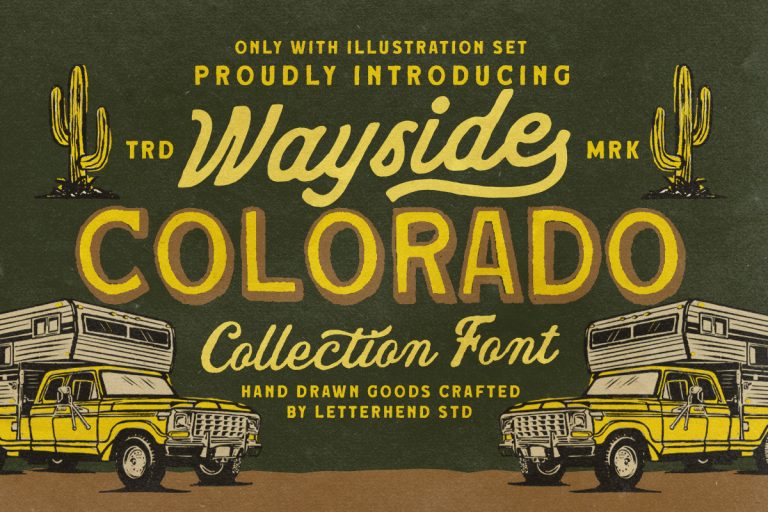
Wayside Colorado Collection channels nostalgic Americana with handcrafted letterforms that evoke sun-faded highway signage, roadside diners, and classic western posters. The font’s rough strokes and subtly distressed edges deliver warmth and authenticity, helping your designs feel lived-in rather than manufactured.…
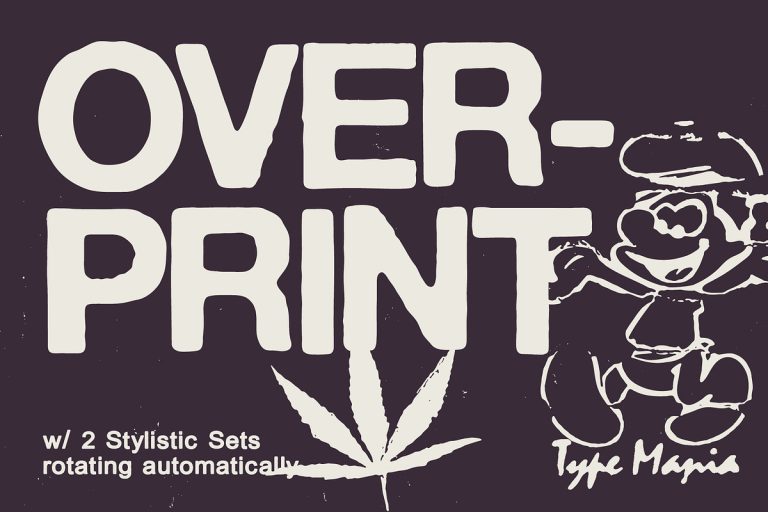
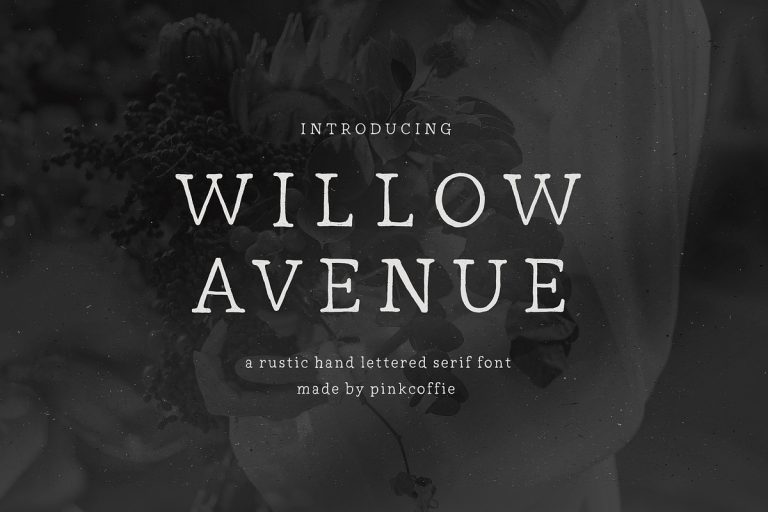Overprint TM – Distressed Sans Serif
Overprint TM captures the raw energy of photocopied, weathered print with intentionally uneven edges and a xeroxed finish that reads as authentic and tactile. This display typeface actively communicates vintage character and rugged personality, making it ideal for posters, packaging,…
Willow Avenue | Hand lettered Serif
Willow Avenue draws its personality from handcrafted ceramics and rustic stationery, bringing a tactile, artisanal feel to modern typography. The letterforms show thoughtful stroke contrast and subtle irregularities that suggest a hand-drawn origin while remaining fully refined for digital and…
Kagita Elegant Serif Font
This serif font delivers a polished, high-end appearance designed specifically for branding and logo applications. It combines classical serif proportions with contemporary details so your wordmarks and logotypes command attention without appearing dated. The letterforms present confident vertical stress, graceful…
American Mortar -Vintage Font Family
AMERICAN MORTAR projects confident, nostalgic energy while remaining highly adaptable to contemporary design systems. Use it for logo marks, headline typography, product packaging, posters, apparel branding, signage, and editorial covers where a strong presence and vintage personality matter. Designers will…
Thorn & Tale – A Refined Serif Font
Thorn & Tale is purpose-built to elevate brands that demand sophistication and visual drama. This high-contrast serif injects editorial authority and artisan charm into logos, magazine mastheads, book covers, and premium packaging. Designers will find Thorn & Tale actively shapes…
Velista || elegant display serif
VELISTA delivers a refined, high-fashion voice for visual identities that demand poise and clarity. Designed with meticulously crafted thin strokes and purposeful contrast, VELISTA balances delicate grace with outstanding legibility. The typeface reads clearly at display sizes while retaining a…
Kelin Eator
Kelin Eator brings a refined vintage voice to modern layouts. The typeface blends classic serif proportions with refreshed terminals and subtle contrast, so headlines read with confident character while supporting text remains readable. Designers will find the font immediately usable…
Garden State
Garden State presents a carefully crafted vintage type collection that channels the refined spirit of early 1900s garden parties. Designers looking to inject authentic period charm into modern work will find Garden State powerful and versatile. The typeface actively shapes…
Fresh Mango – Retro Serif Font
Fresh Mango brings a retro serif voice that commands attention while remaining highly usable across projects. Its high-contrast strokes and curved terminals create a sleek, elegant appearance that reads strongly at display sizes and preserves clarity in longer lines. Use…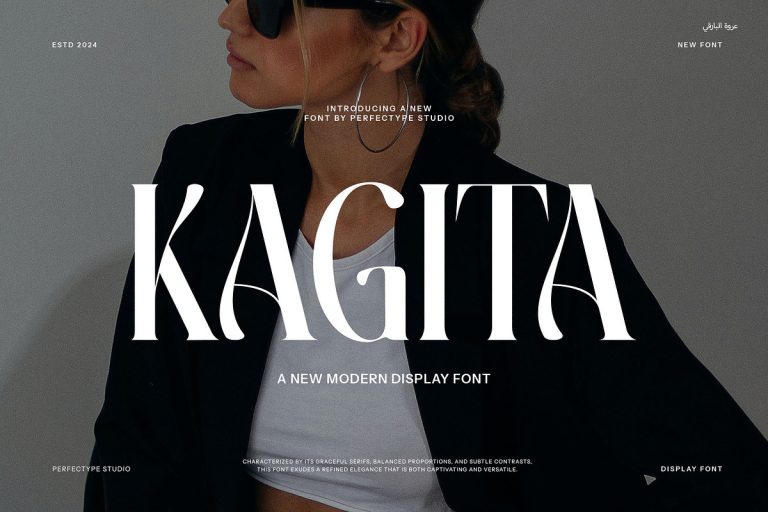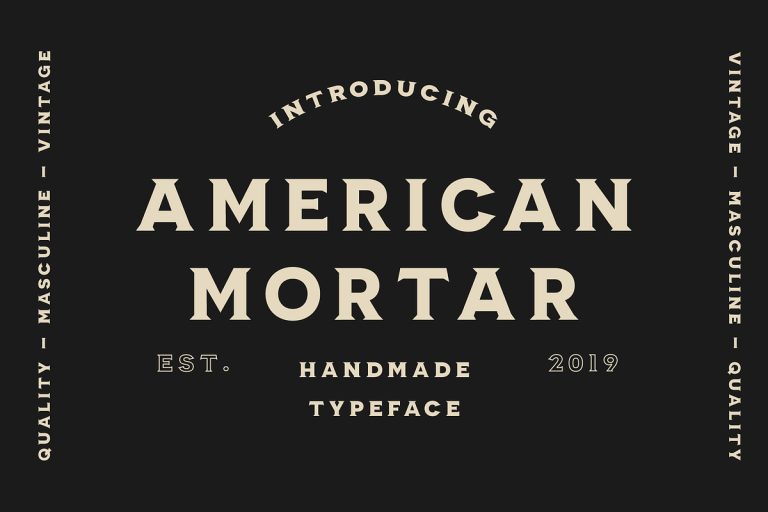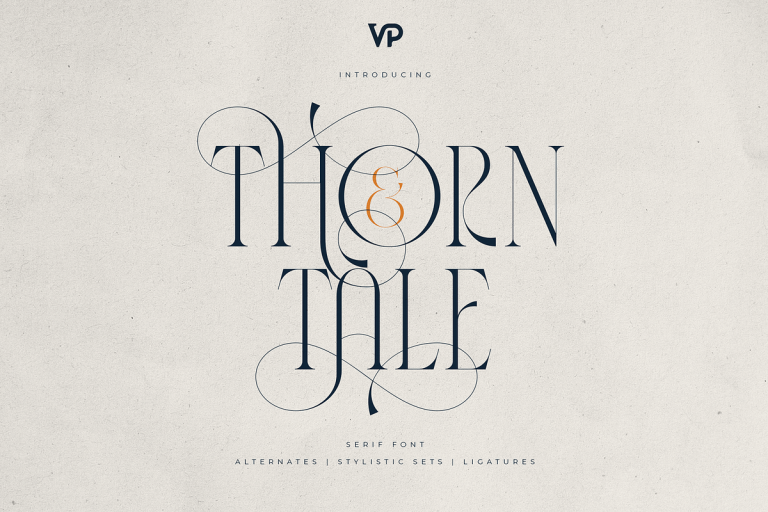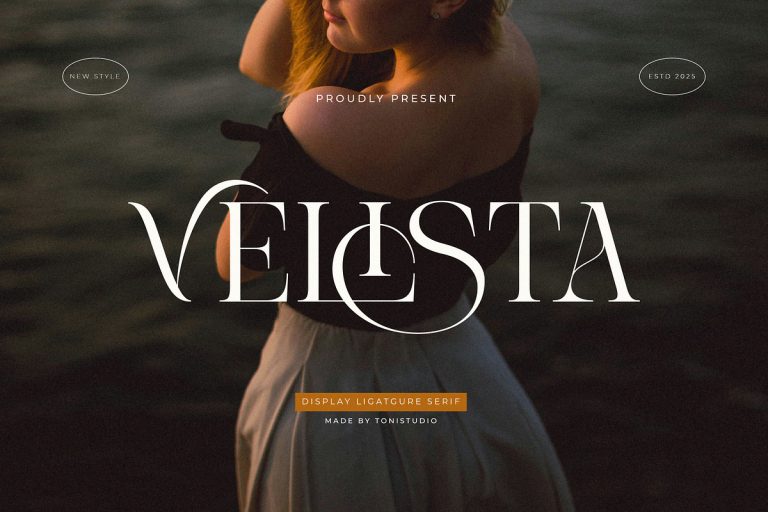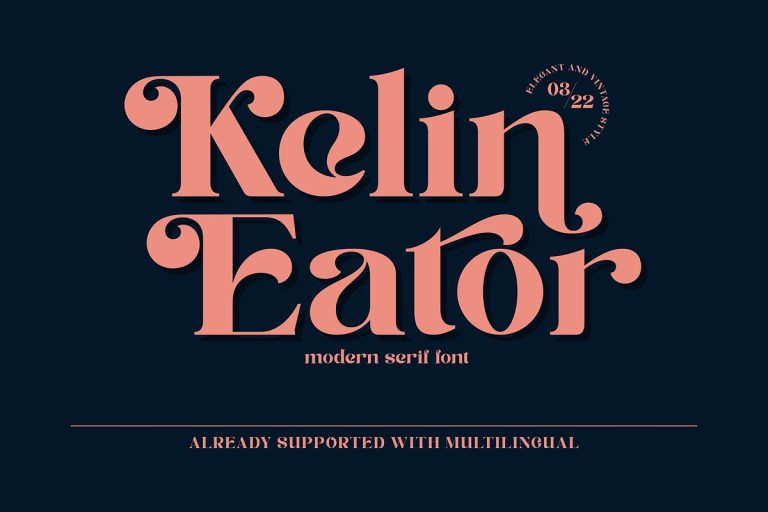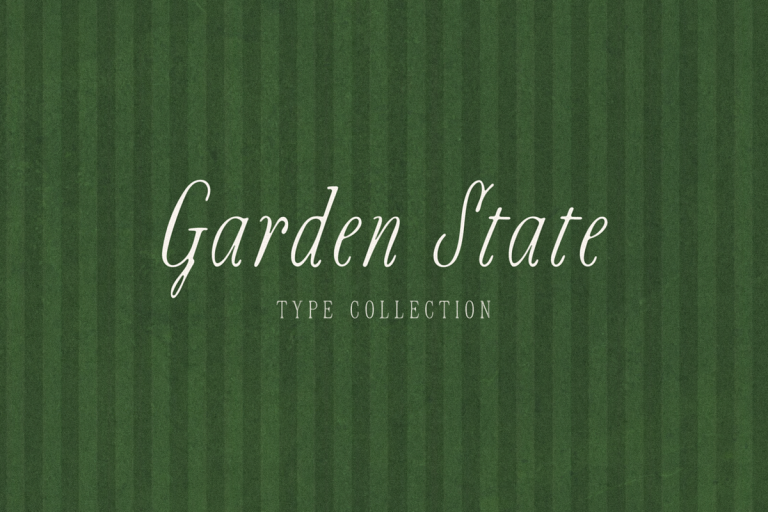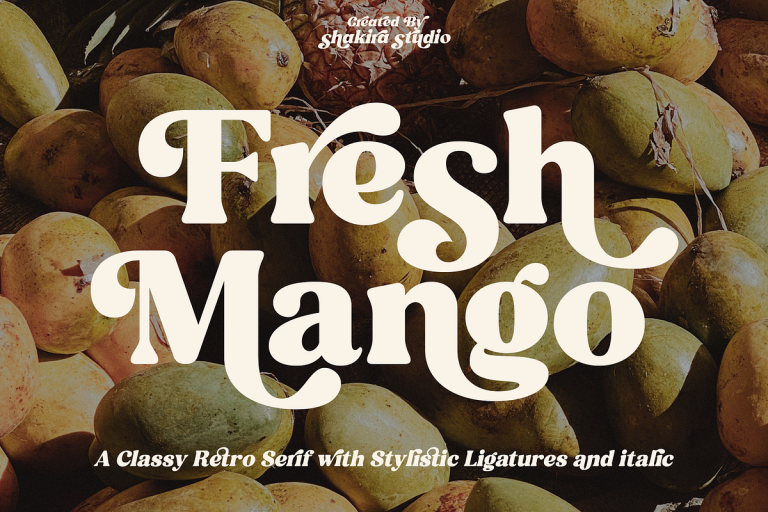